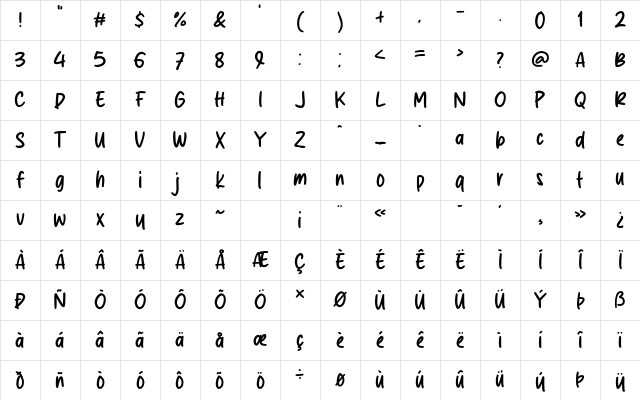
Agatha Miranda Regular Free Font
Agatha Miranda Regular
Designer: MJType (Muhamad Junaid) www.mjtype.com
Design Context for Agatha Miranda
Agatha Miranda is a composed and adaptable typeface that performs quietly and consistently across a wide range of design contexts.